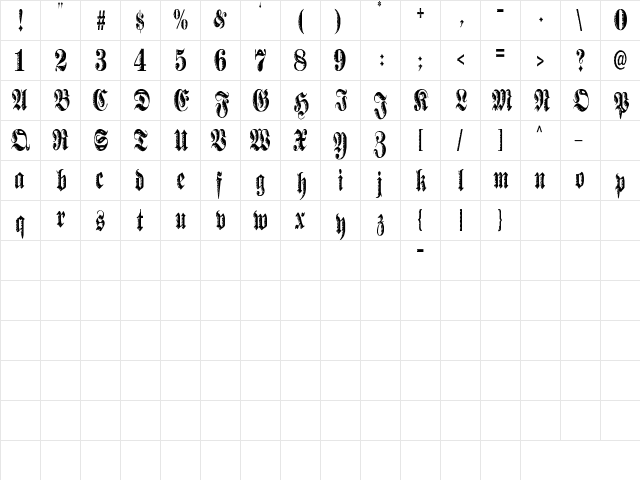
made Regular
| Designer | Designed by Jason Ramirez |
Design Context for made Typeface
made is a composed and adaptable typeface that performs quietly and consistently across a wide range of design contexts.